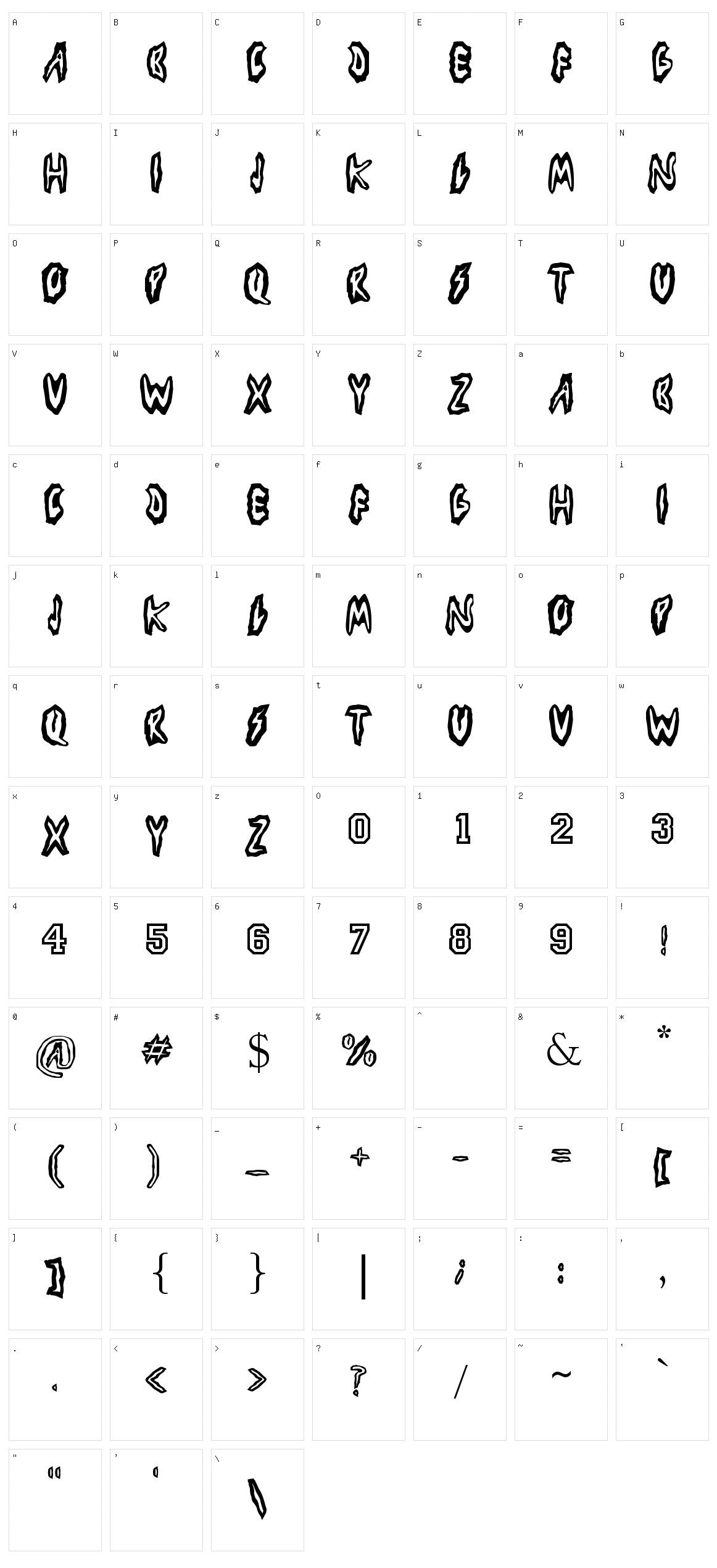
The free font Los Piojos is carefully designed by Santiago Ballarini, showcasing a thoughtful balance of creativity and usability and falls under the Destroy font style. When you download the ZIP file, it contains only 19.75 KB of font files, making it lightweight and quick to download. Please review the license details below to understand permitted usage and distribution rights. If license information is not available, we recommend using this font for personal projects only or contacting the author directly for commercial usage permissions.